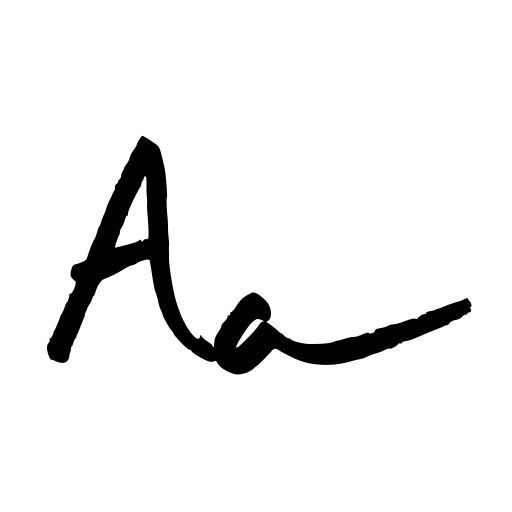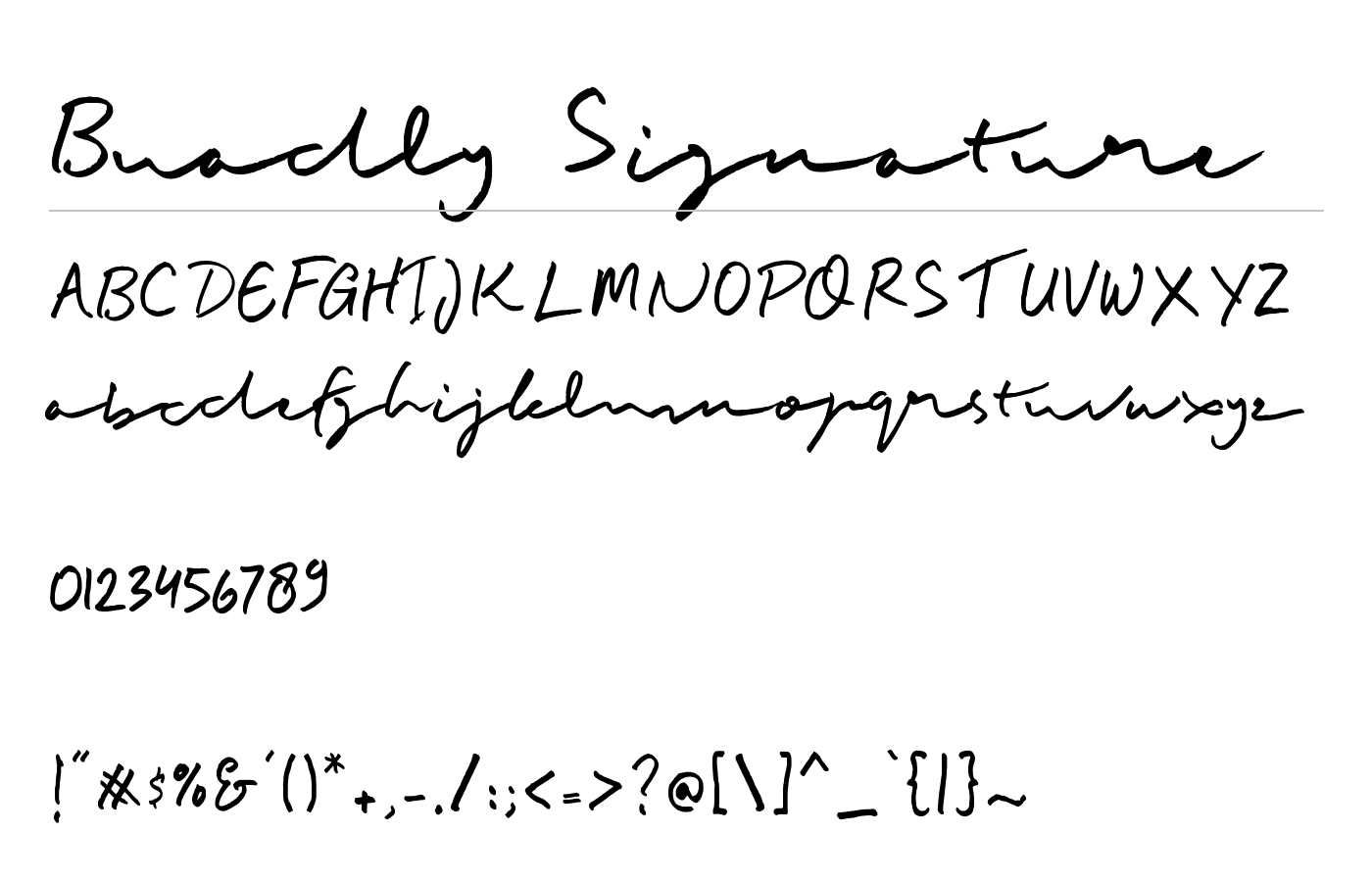
Buadly Signature Font is a casual, handwritten script font that mimics authentic personal handwriting with a loose, flowing style. It features slender, irregular strokes and natural, slightly uneven letterforms that give it a friendly, approachable, and creative feel, perfect for adding a personal touch to branding, invitations, or editorial designs. This font works well in projects that seek a relaxed yet stylish vibe, such as logos, social media graphics, and modern lifestyle packaging.
Buadly Signature Font
About Buadly Signature Font